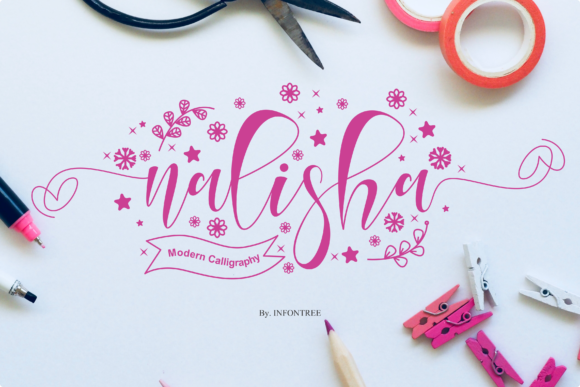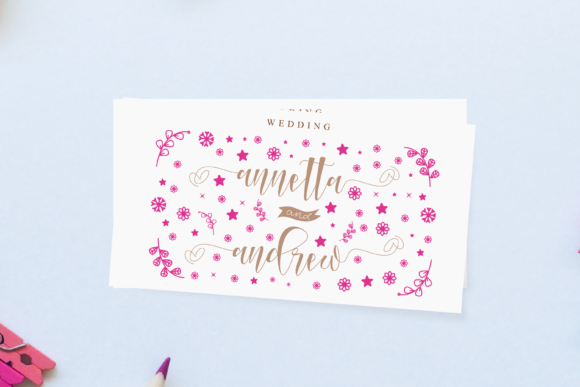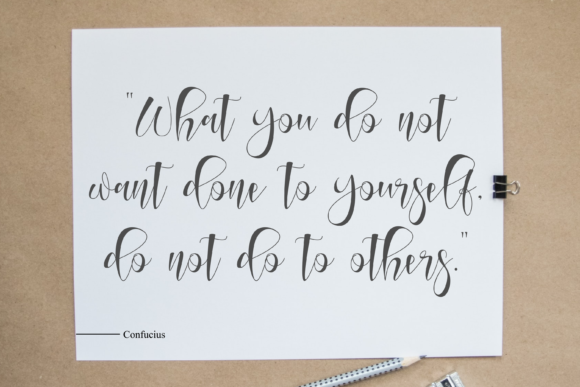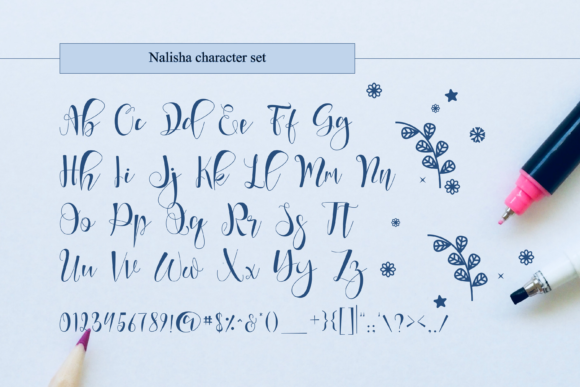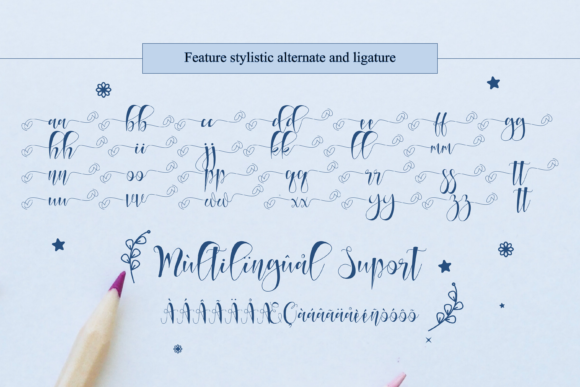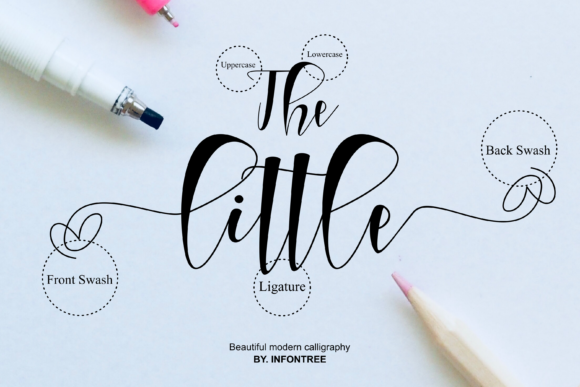
Introduction to Nalisha Font
Have you ever stared at a blank canvas, feeling the weight of a creative project on your shoulders, and suddenly, the perfect font pops into your mind? For designers, that ‘aha’ moment is the spark that brings a concept to life. For me, it was the discovery of the Nalisha Font – a beautiful, romantic handwritten font that adds a touch of whimsy to any design.
Whether you’re crafting wedding invitations, thank you cards, or logos, the Nalisha Font is an invaluable resource that can elevate your designs to new heights. With its PUA encoding, accessing all the glyphs and swashes is a breeze, making it a game-changer for designers who crave high-quality, unique elements for their projects.
Key Features of Nalisha Font
- High-quality, professional font suitable for creative projects and design resources.
- Transparent background design, ideal for overlaying text on images or videos.
- Unique, modern design with a clean and minimalist aesthetic, perfect for branding and marketing materials.
Honest Review: Nalisha Font
- ✨ Beautiful, modern design that’s perfect for any creative project
- ✨ High quality font that looks great on any screen resolution
- ⚠️ Limited character set, which can make it difficult to use for longer blocks of text
- ⚠️ Not as customizable as some other fonts I’ve worked with
Nalisha Font
Tips for Getting the Most Out of Nalisha Font
To get the most out of Nalisha Font, experiment with different font sizes and colors to create visual interest. You can also combine it with other design resources for a unique look.
Nalisha Font is commonly used in graphic design, branding, and digital marketing projects. Its high-quality design and transparent background make it ideal for creating eye-catching visuals.
Alternatives to Nalisha Font
The Great Vibes Font is a high-quality, handwritten font perfect for creative projects that require a unique touch. It features a transparent background, making it ideal for overlaying on images. Great Vibes is ideal for use in designs that need a casual, yet elegant feel.
Compared to Nalisha Font, Great Vibes has a more relaxed and casual feel, making it suitable for projects that require a softer tone.
The Alex Brush Font is a beautiful, calligraphic font designed for designers who need a high-quality, elegant design resource. It features a transparent background, allowing for seamless integration with images. Alex Brush is ideal for use in designs that require a touch of sophistication and refinement.
Compared to Nalisha Font, Alex Brush has a more refined and sophisticated feel, making it suitable for projects that require a high-end look.
The Dancing Script Font is a dynamic, handwritten font perfect for creative projects that require a playful touch. It features a transparent background, making it ideal for overlaying on images. Dancing Script is ideal for use in designs that need a fun and energetic feel.
Compared to Nalisha Font, Dancing Script has a more playful and energetic feel, making it suitable for projects that require a lively tone.